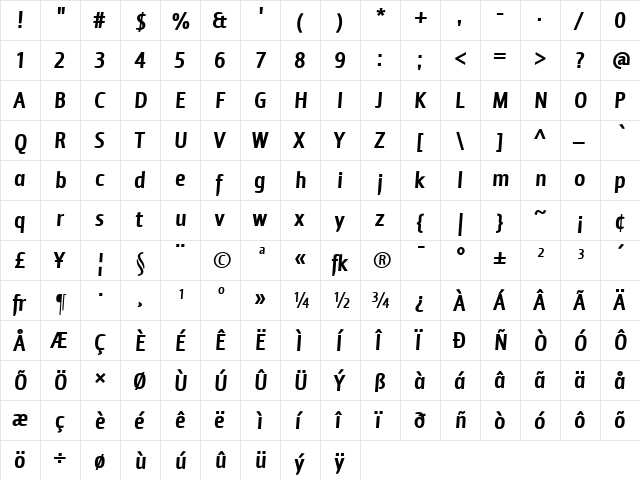
DioneBoldItalic Regular Font Preview
| Foundry | Dino dos Santos _ DSType |
Design Context for DioneBoldItalic Typeface
DioneBoldItalic takes a measured approach to typography — its balanced proportions and neutral character make it a reliable workhorse for both digital and print work. The slanted form adds forward momentum and visual energy. The heavy weight commands attention and anchors typographic hierarchies.
Pro Tip: Try DioneBoldItalic for annotation and caption copy alongside an upright companion — the contrast in angle creates a dynamic but ordered typographic system.